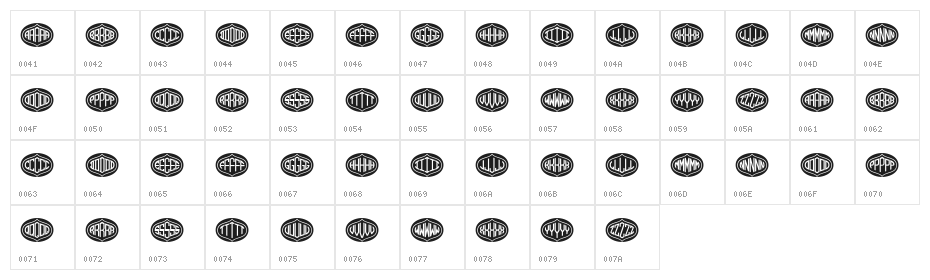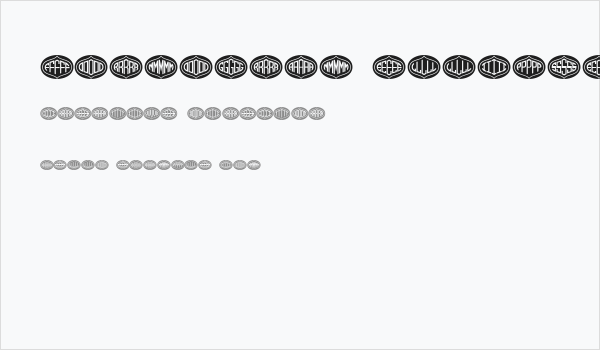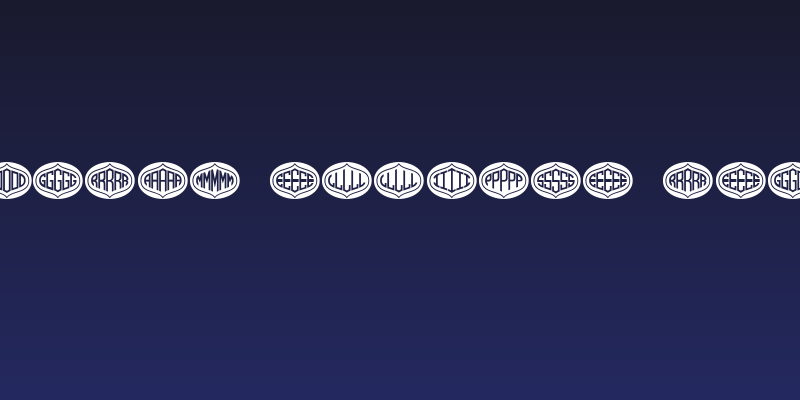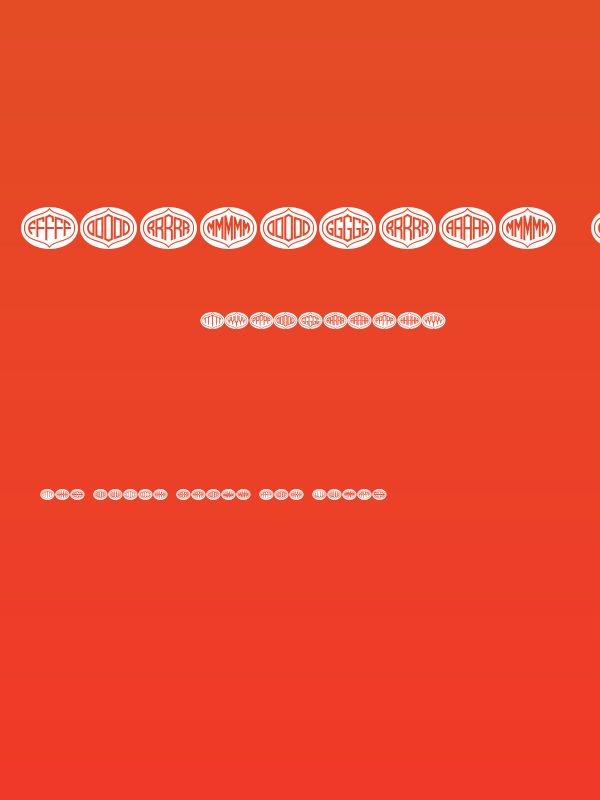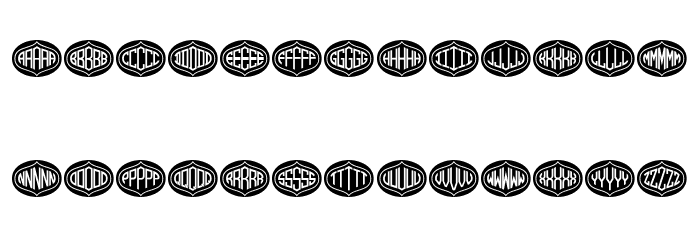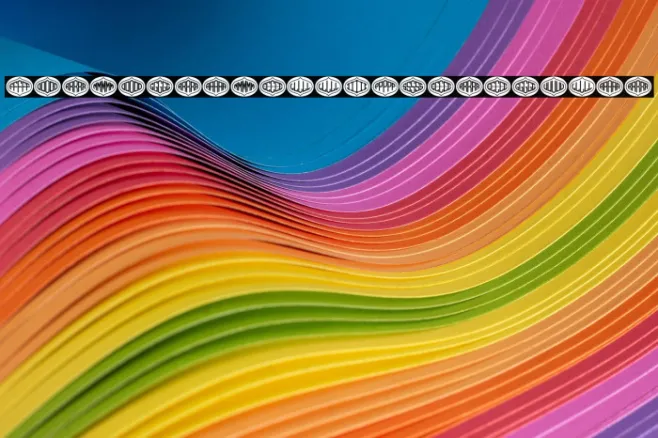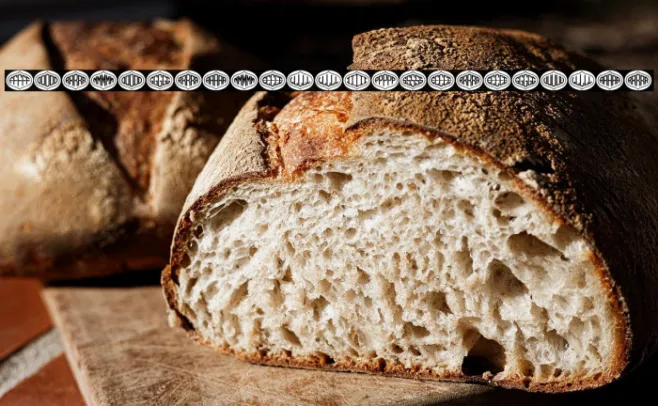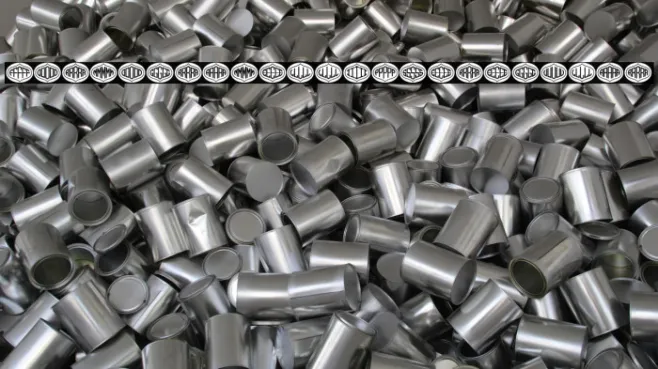
Formogram Ellipse Regular Font
Formogram Ellipse Regular Description
This font features a unique design where each character is enclosed within an elliptical shape, giving it a distinctive and decorative appearance. The letters are bold and geometric, with a modern and futuristic style. The characters are evenly spaced within their elliptical boundaries, creating a uniform and structured look. This font is particularly eye-catching due to its encapsulated design, making it stand out in any context.